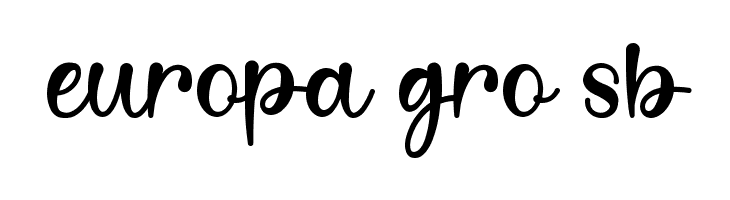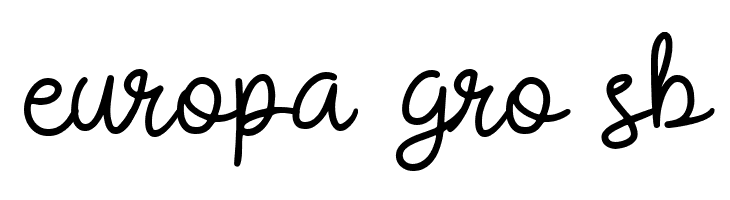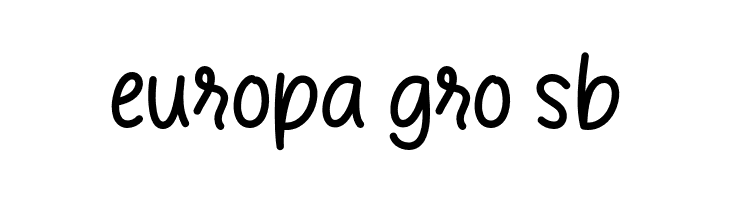
• Believer
A bold, handwritten font with a playful and dynamic style.
• Believer Fever
A bold, expressive script font with dynamic strokes and artistic flair.
• Belifien
A bold, modern font with a strong, condensed design ideal for impactful headlines.
• Belight
A geometric, angular font with a modern, futuristic aesthetic.
• Belights
An elegant script font with flowing, interconnected letters and a sophisticated style.
• Beligna
A decorative cursive font with elegant swashes and smooth, connected letters.
• Beligo cary FREE
A flowing, cursive script font with elegant loops and swashes.
• BeligocaryFREE
A flowing, cursive script with elegant loops and a handwritten appearance.
• Belikan
A modern, geometric font with tall, narrow characters and clean lines.
• Belimbing
A bold, brush-style font with dynamic curves and a hand-drawn appearance.
• Belinda
A cursive script font with elegant, flowing characters and a natural handwriting style.
• Belinda Carolyne
An elegant script font with flowing, delicate strokes and ornate details.
• Belindascript-script
A graceful and flowing script font with elegant, connected letters.
• Belinday
A dynamic and elegant script font with fluid strokes and a modern yet timeless appeal.
• Belinday
A fluid and elegant handwritten font with a modern touch.
• Belindia
An elegant script font with flowing, cursive style and intricate swashes.
• Beling Kaca
A highly decorative and chaotic font with swirling, organic patterns.
• Belinta Cinta
A dynamic, cursive script font with flowing, interconnected strokes.
• Belisa plumilla manual
• Belisha
A lively, flowing script font with modern elegance and playful sophistication.
• Belisha
A lively and flowing script font with elegant, fluid strokes.